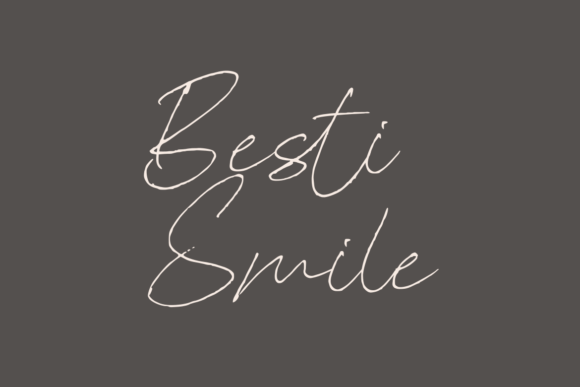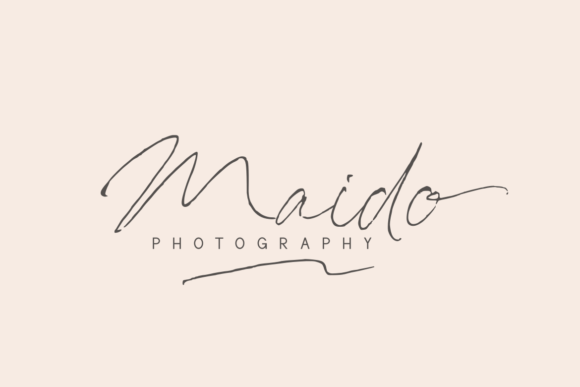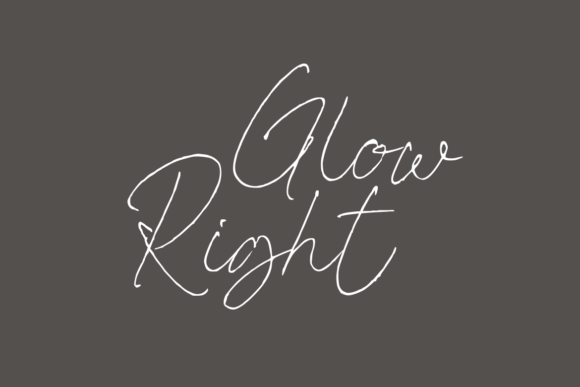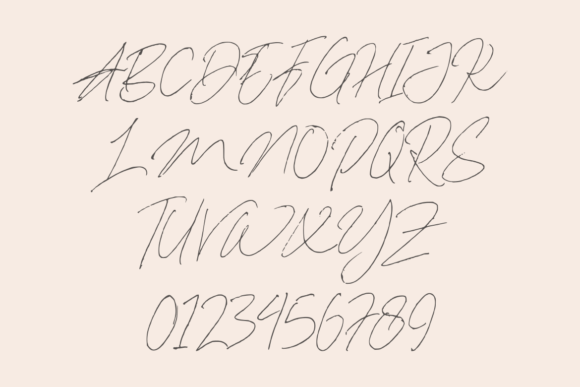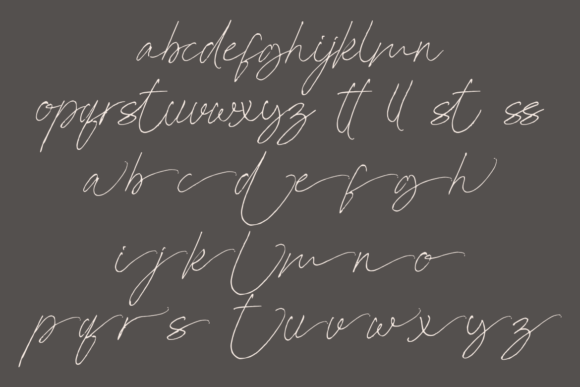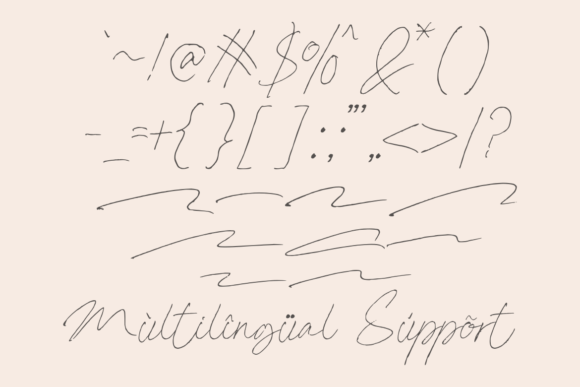
About Dallem Signature Font
Dallem Signature is a magical script font, meticulously crafted with a touch of elegance. Whether you’re in search of fonts for Instagram, or calligraphy scripts for your DIY projects, this font has the enchanting ability to transform any creative idea into a true piece of art.
The magic of Dallem Signature is immediately evident in its graceful script. Each letter is carefully designed to convey a sense of elegance, adding a touch of sophistication to your projects. The flowing strokes and artistic details make it a captivating choice for various design applications.
Whether you’re working on social media content for Instagram or engaging in DIY projects, Dallem Signature is a versatile font that adapts effortlessly. Its magical quality brings an element of charm to your creations, making them stand out as true works of art.
Incorporating Dallem Signature into your designs is an invitation to infuse them with a touch of elegance and enchantment. The script’s artistic flair makes it well-suited for projects where a sense of beauty and sophistication is desired.
In summary, Dallem Signature transcends being just a font; it’s a magical tool that adds an elegant touch to your creative endeavors. Whether you’re crafting content for social media or engaging in DIY projects, let Dallem Signature be the enchanting script that elevates your ideas into true pieces of art.